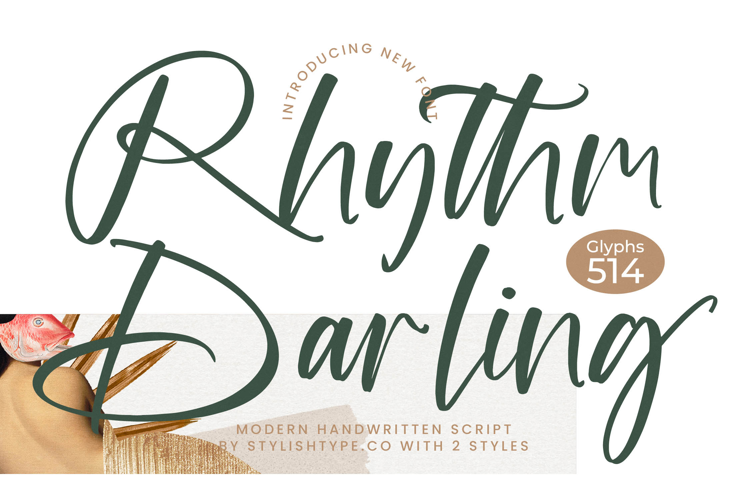
Rhythm Darling - Modern Handwritten Script
Rhythm Darling - Modern Handwritten Script, a sophisticated typeface designed to capture the spontaneous elegance of authentic calligraphy. Its striking high-contrast strokes and fluid connectivity lend an immediate sense of luxurious custom design to any project. This font is perfect for creating impactful, signature headlines that demand attention while maintaining an approachable, personalized feel, making it an indispensable tool for premium visual identity.